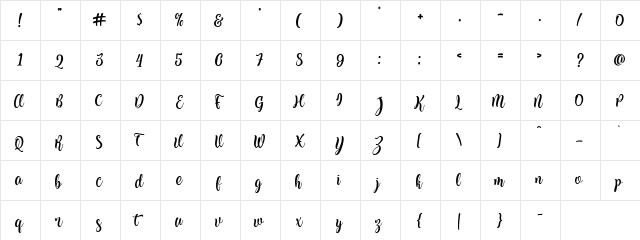
Kite Script Regular
| Foundry | Twicolabs Fontdation |
| Designer | Twicolabs Fontdation |
Kite Script brings a calligraphic fluidity to the page — its connecting strokes and expressive curves give it an unmistakably human quality.
Font Pairing: Combine Kite Script with a simple geometric sans for maximum contrast — the tension between flowing curves and clean structure is a classic typographic pairing.
Pro Tip: Use Kite Script for short runs of text — names, titles, or taglines. Extended body copy in script faces tires the eye quickly.